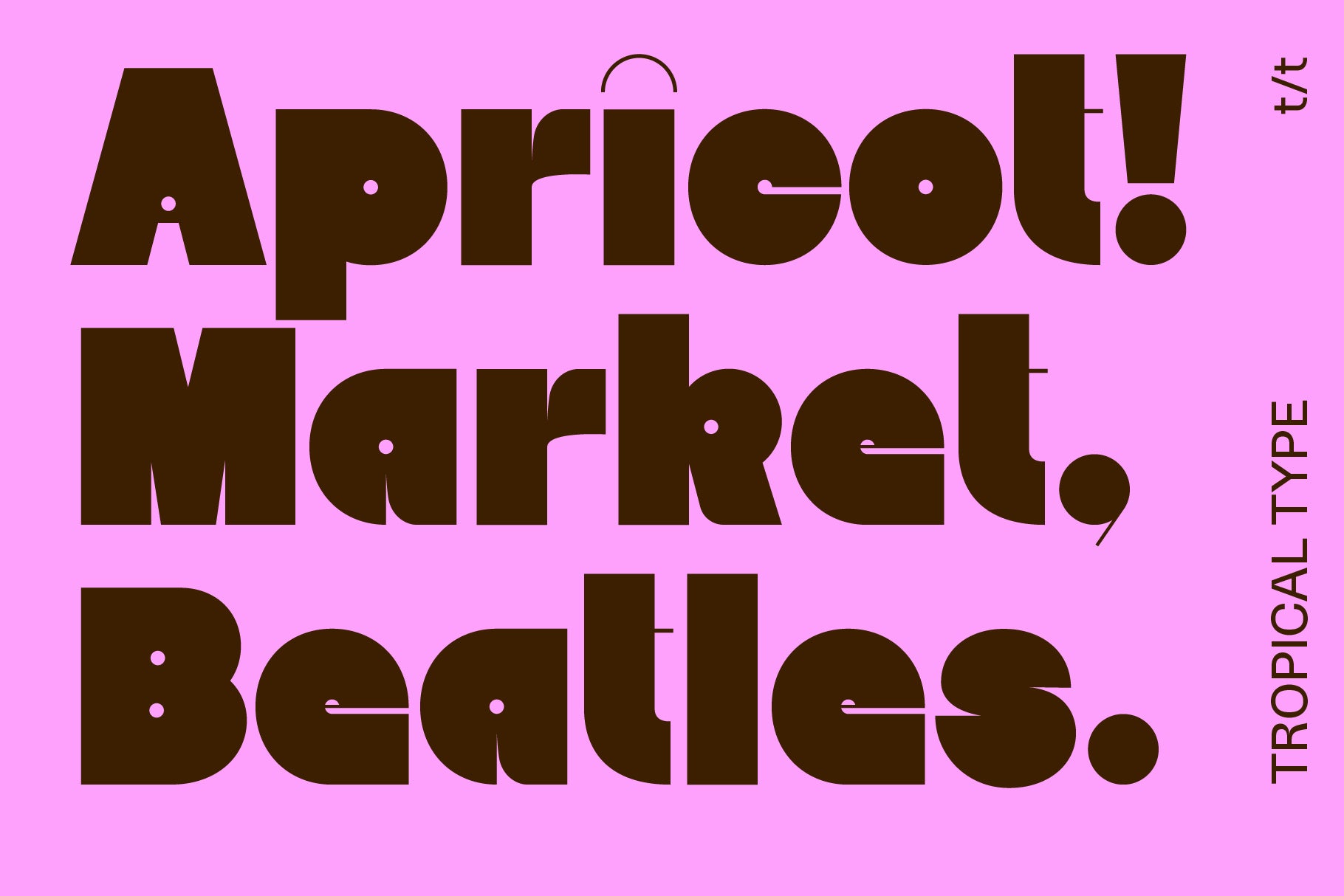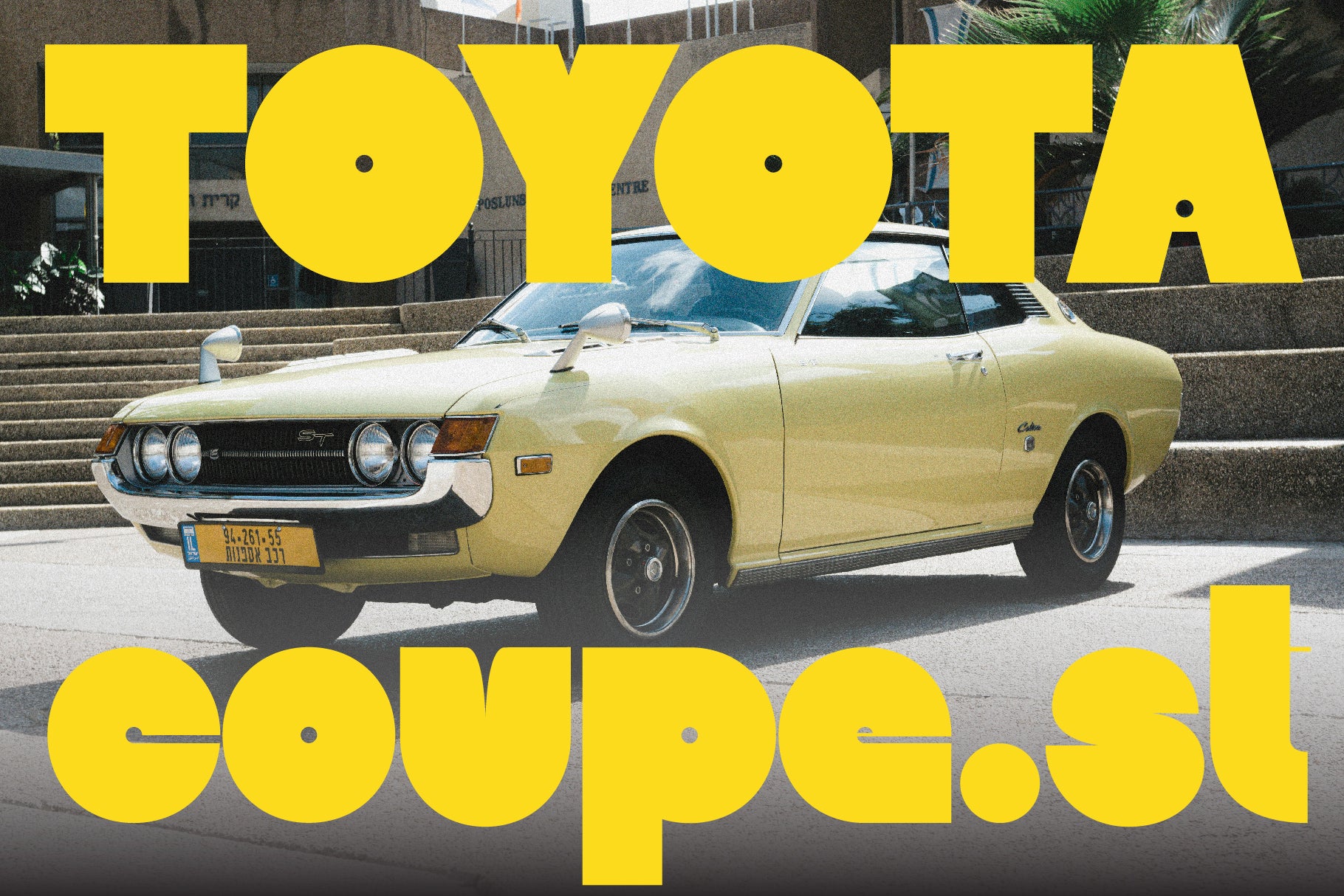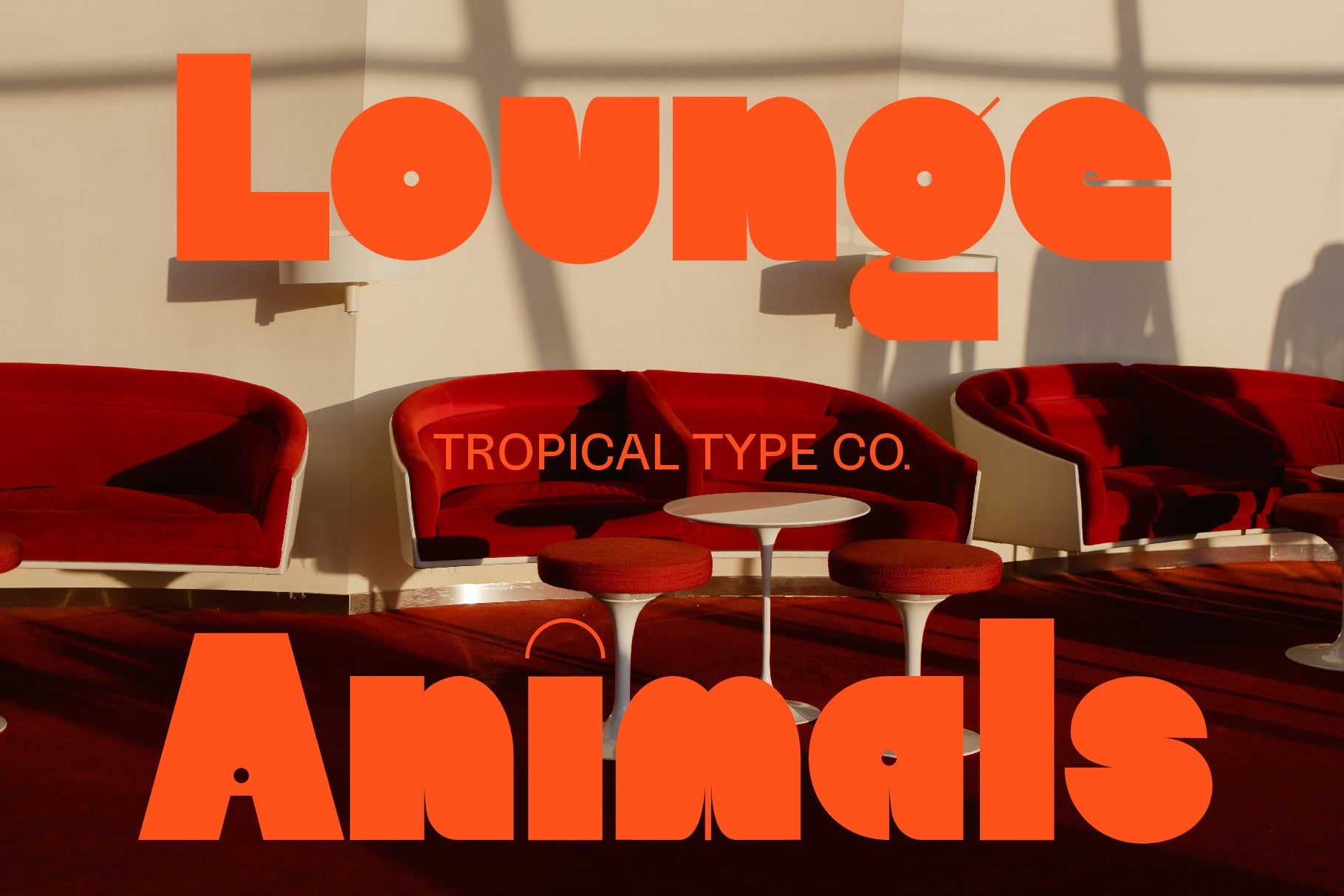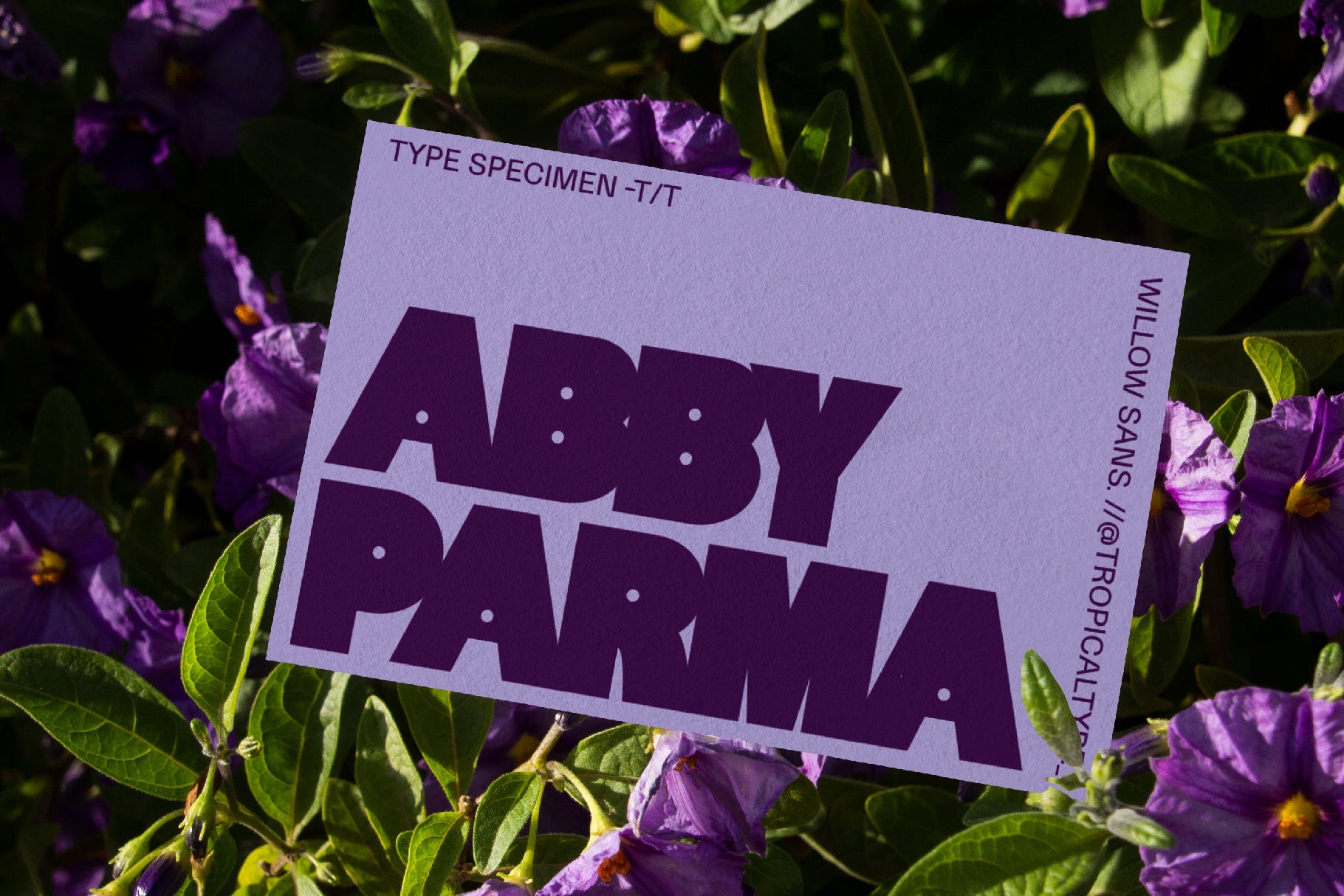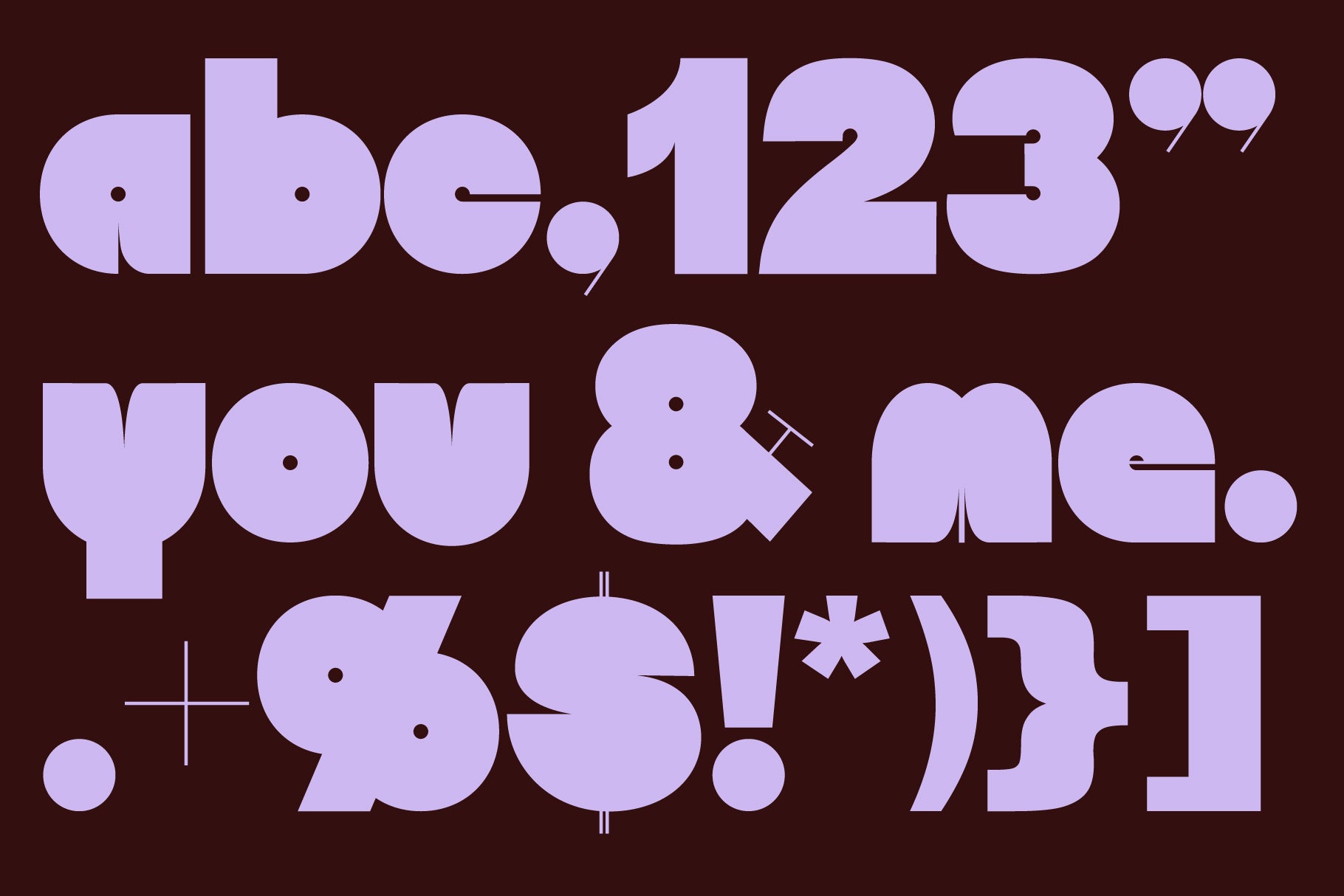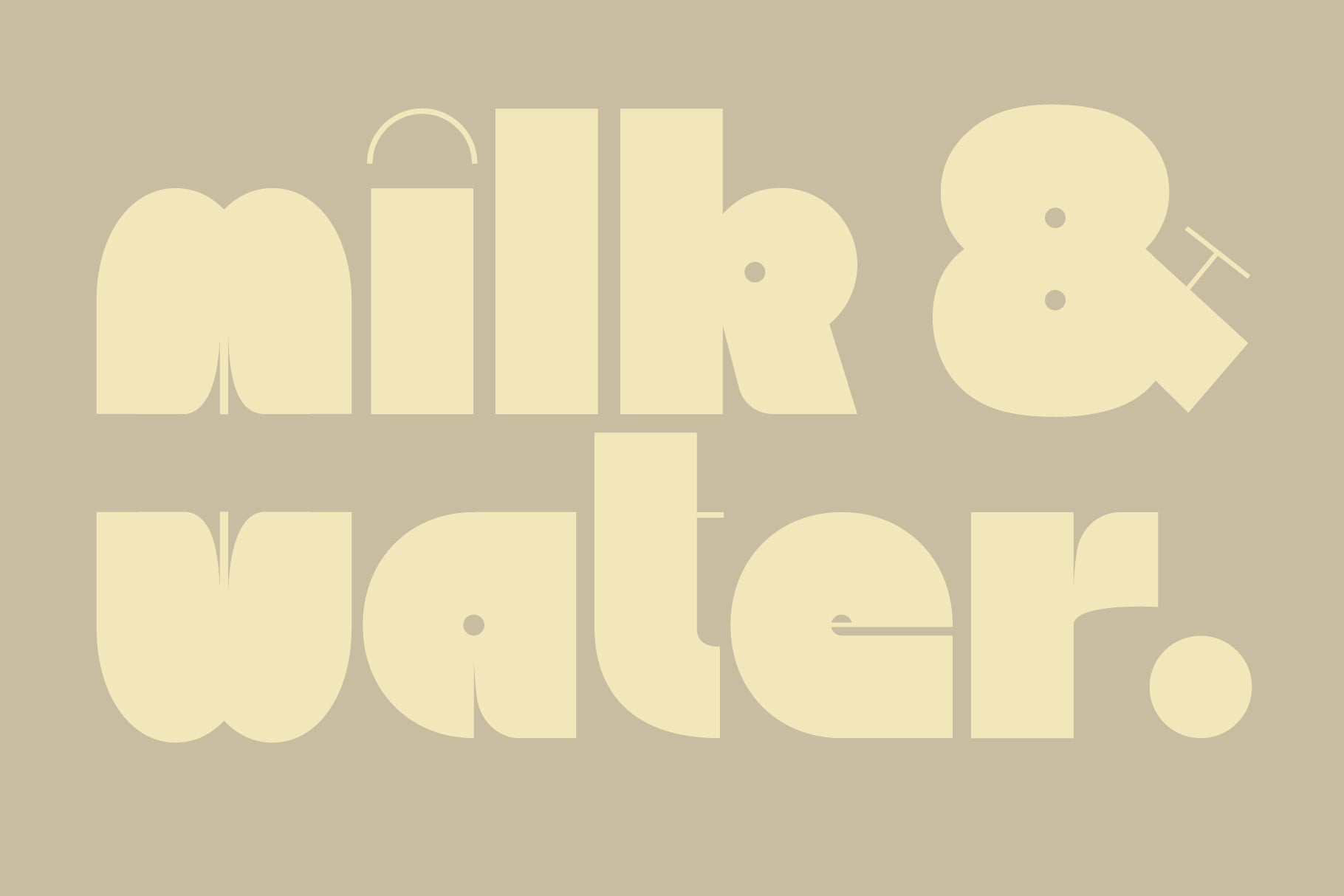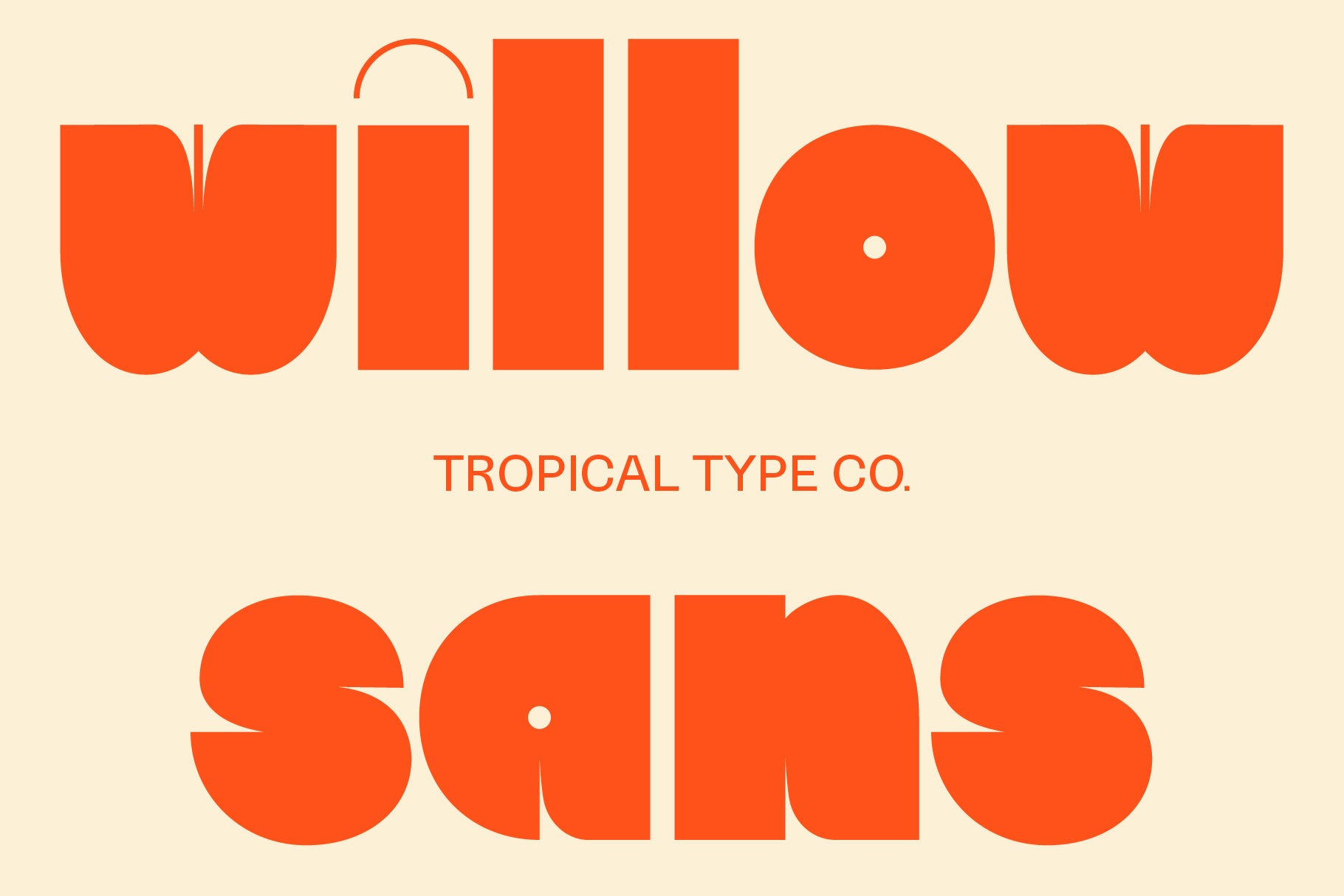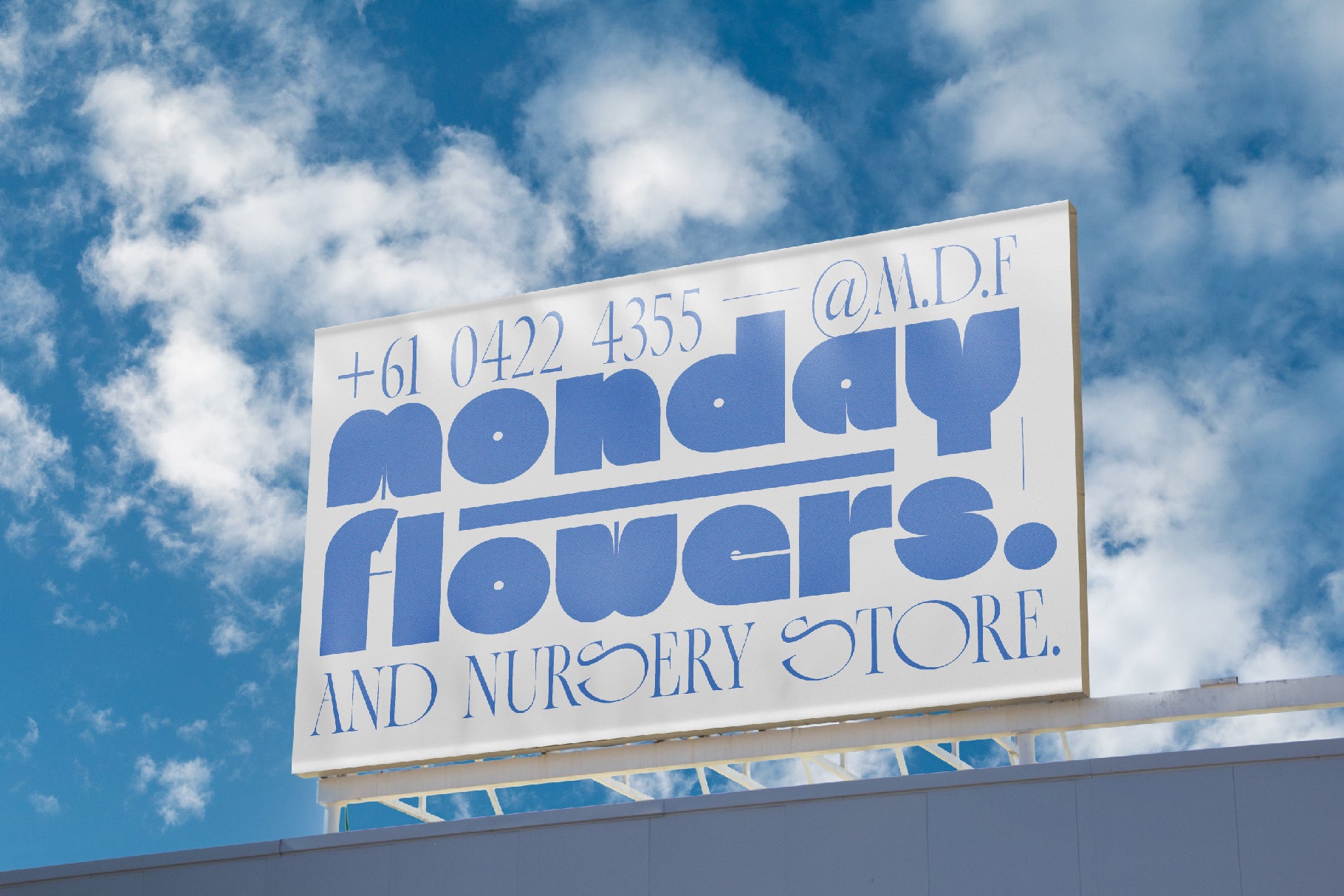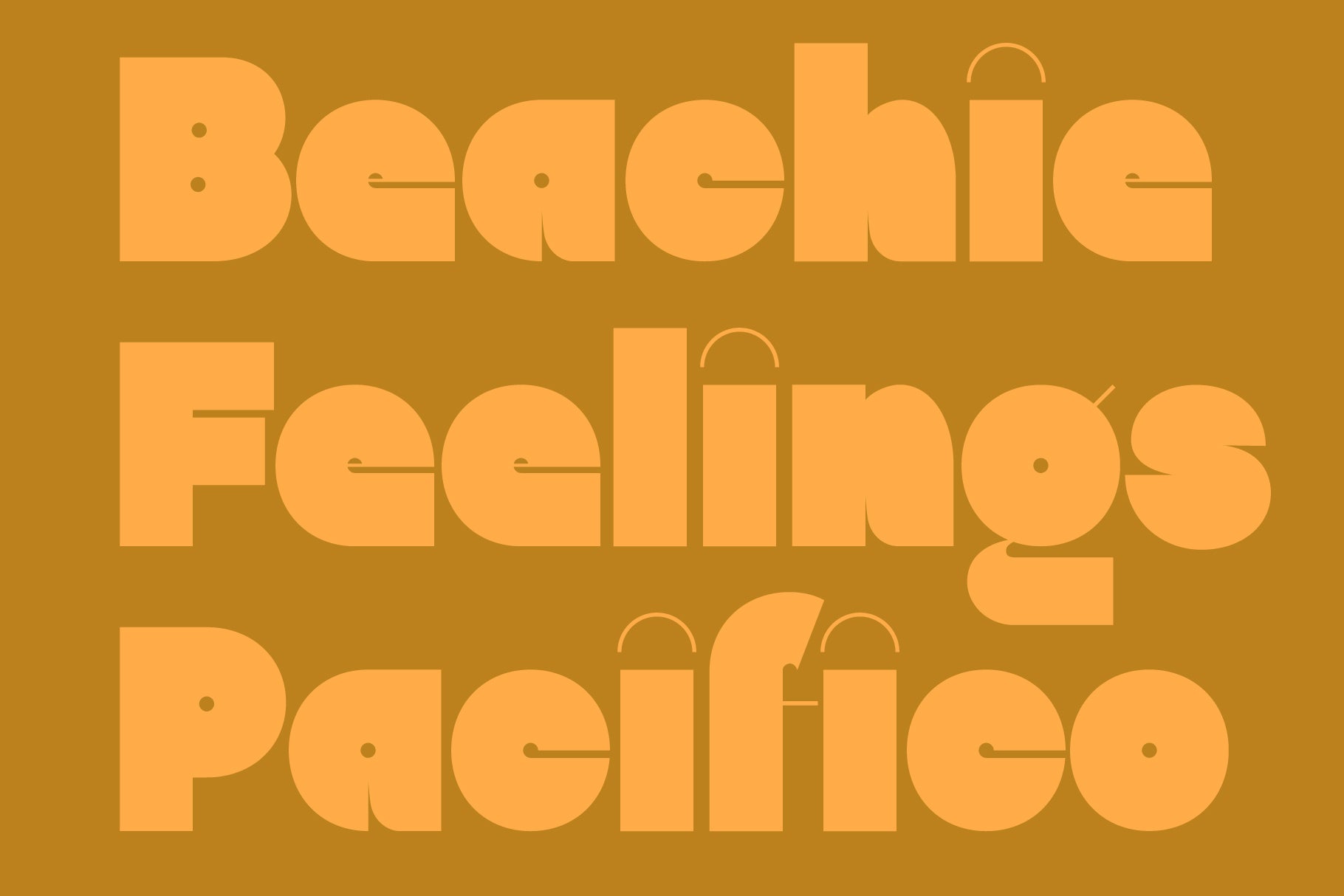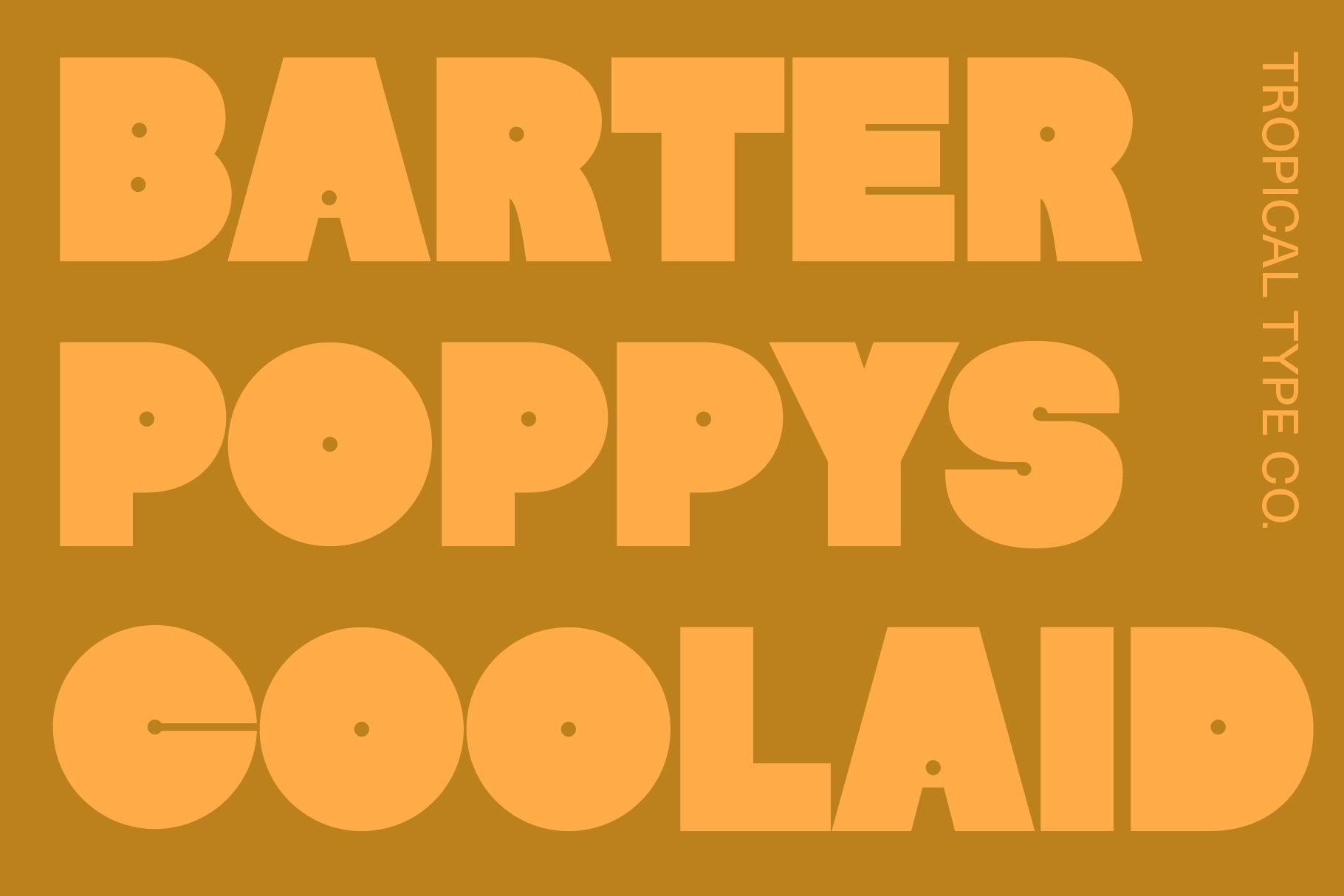
Willow Sans
Willow Sans is a little cute & a little quirky, with just a hint of nostalgia. Geometric seventies vibes mix with more modern experimental outlines creating a bold yet approachable typeface.